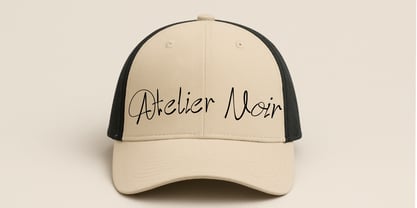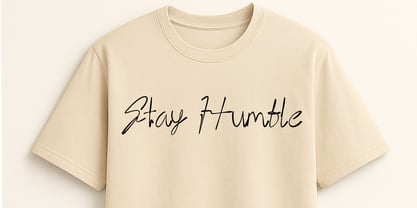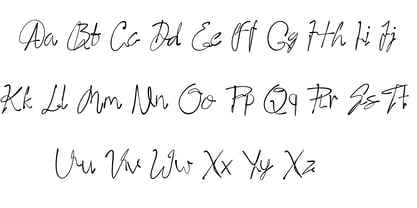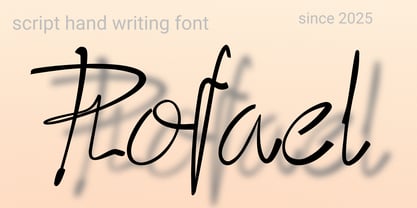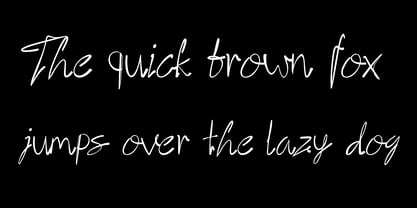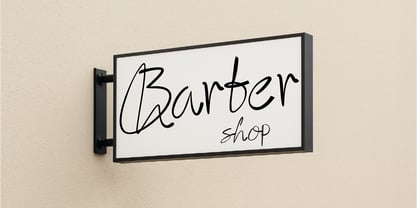
Rofael
by Eroane Creative
The Rofael Font Family was designed by Erick Rismawan and published by Eroane Creative. Rofael contains 1 styles. More about this family
Rofael is a stylish handwriting semi script font that combines the natural flow of handwritten letters with the elegance of modern typography. Its smooth curves and balanced strokes create a friendly yet sophisticated look, making it perfect for designs that need a personal and authentic touch.
Ideal for branding, packaging, invitations, quotes, and social media graphics, Rofael brings warmth and character to any project. Its semi script style ensures great readability while still maintaining a unique handcrafted charm.
With a balance between casual handwriting and refined script design, Rofael is versatile enough to stand out in headlines yet remain elegant in longer text.
Designers: Erick Rismawan
Current Foundry: Eroane Creative